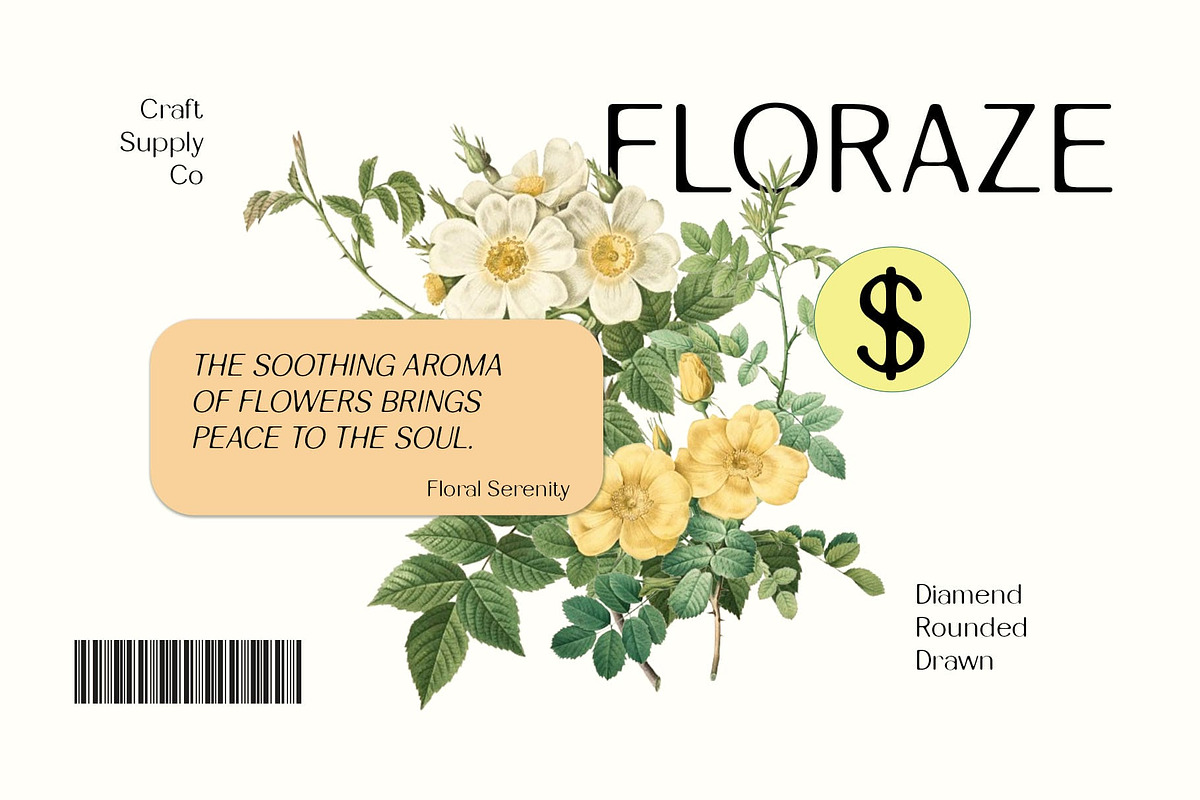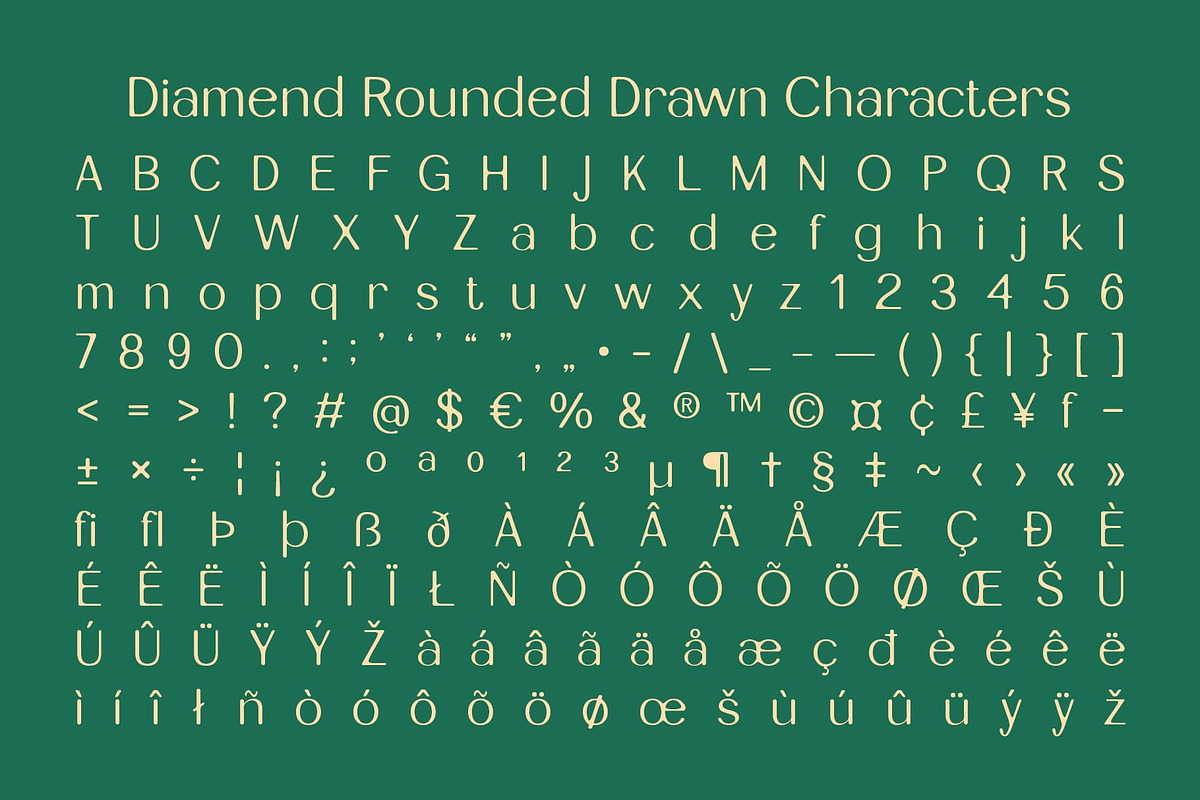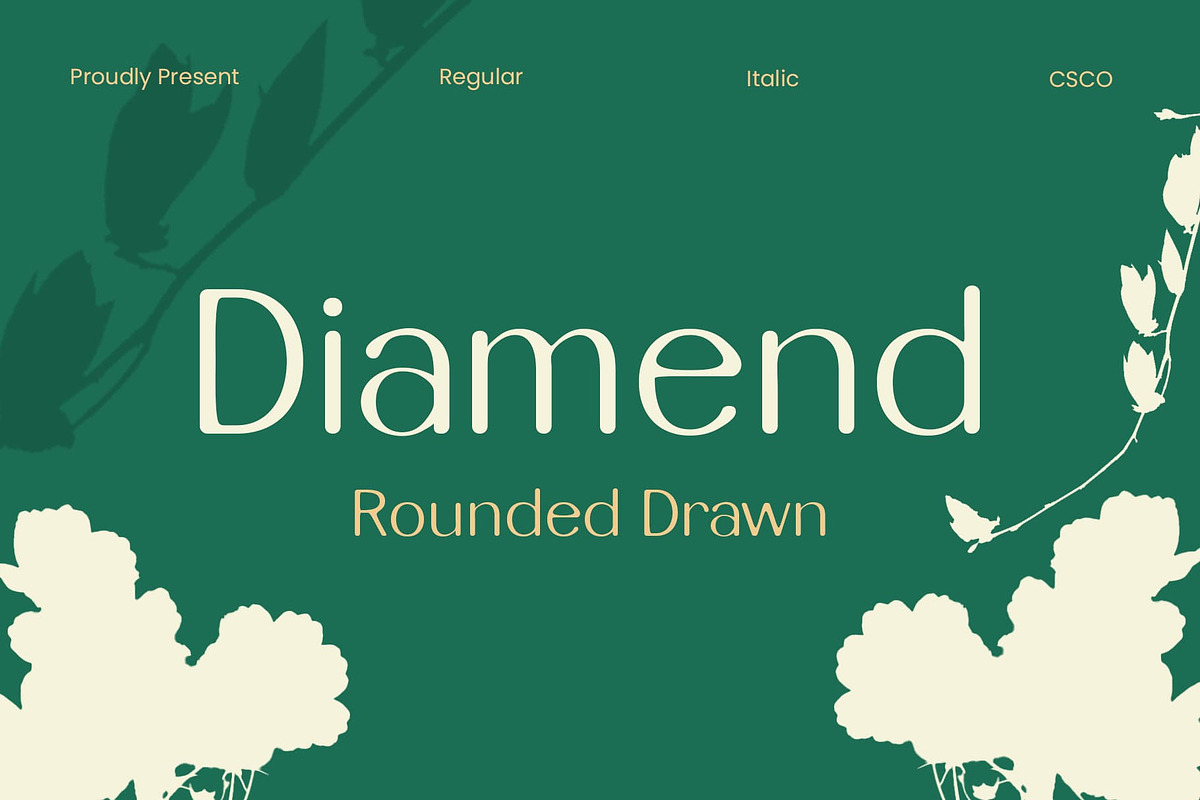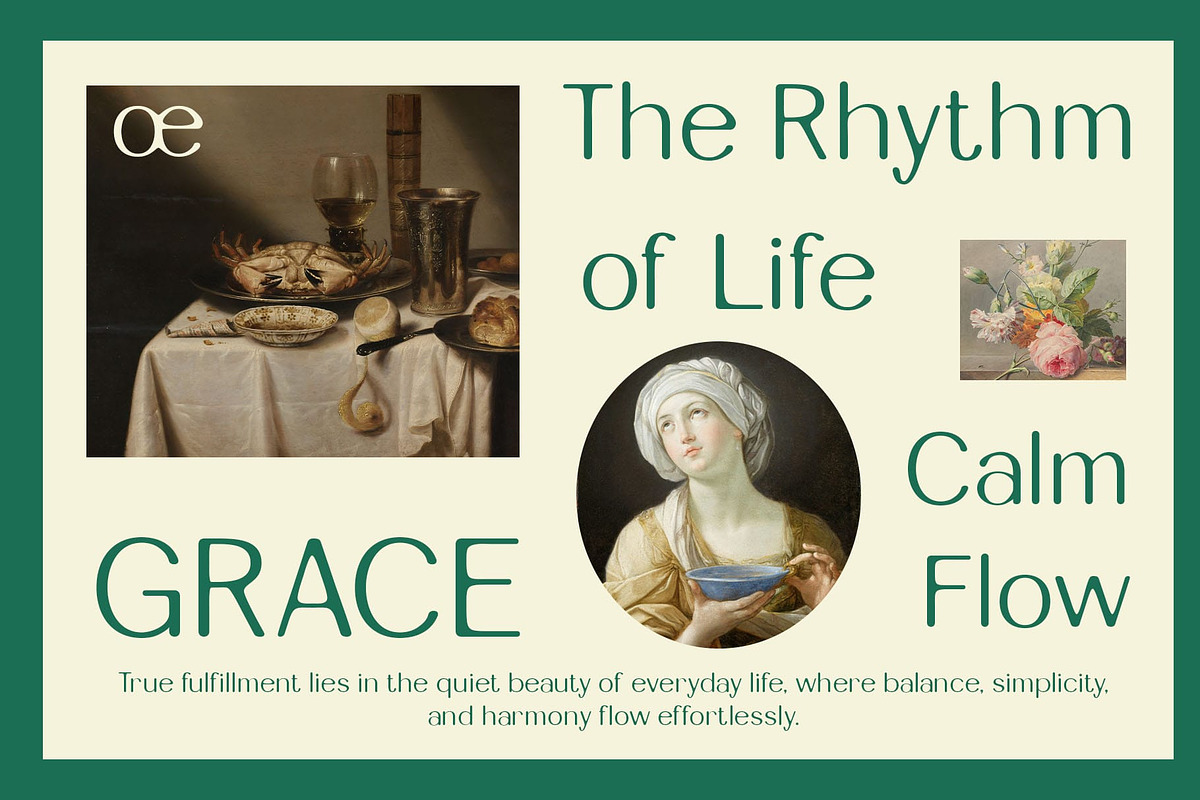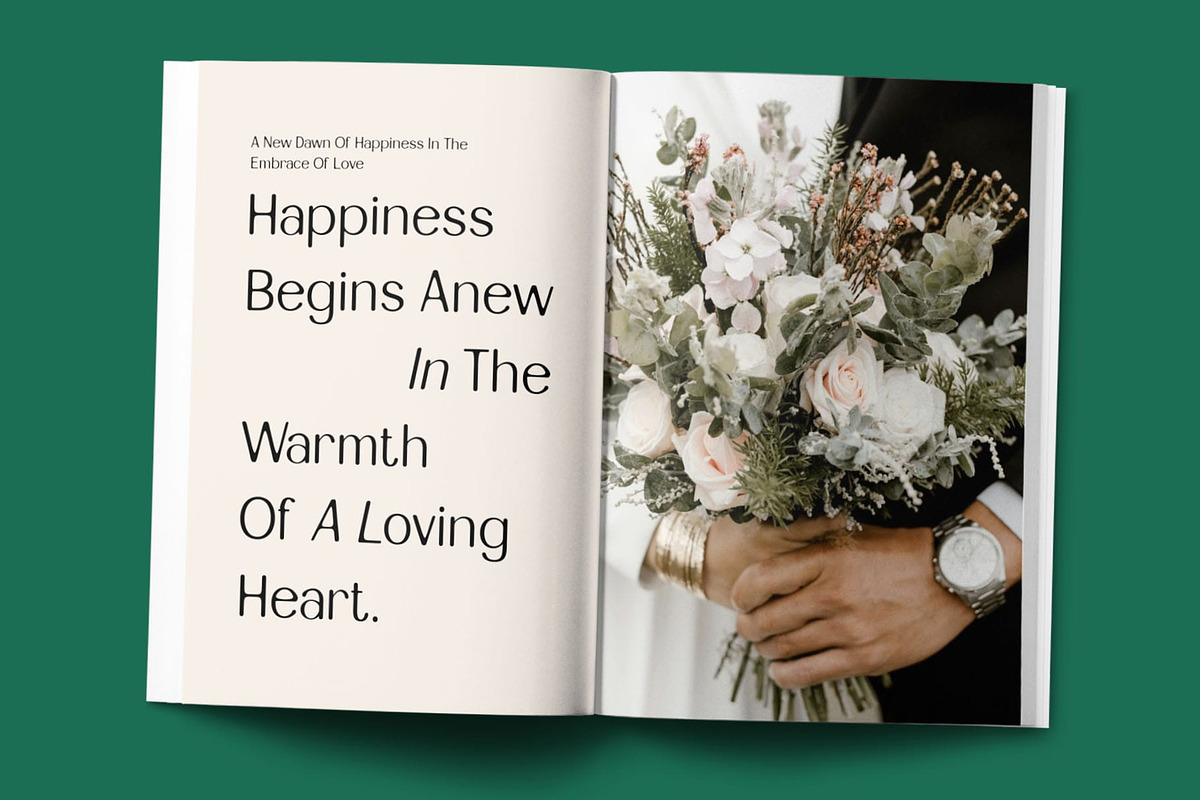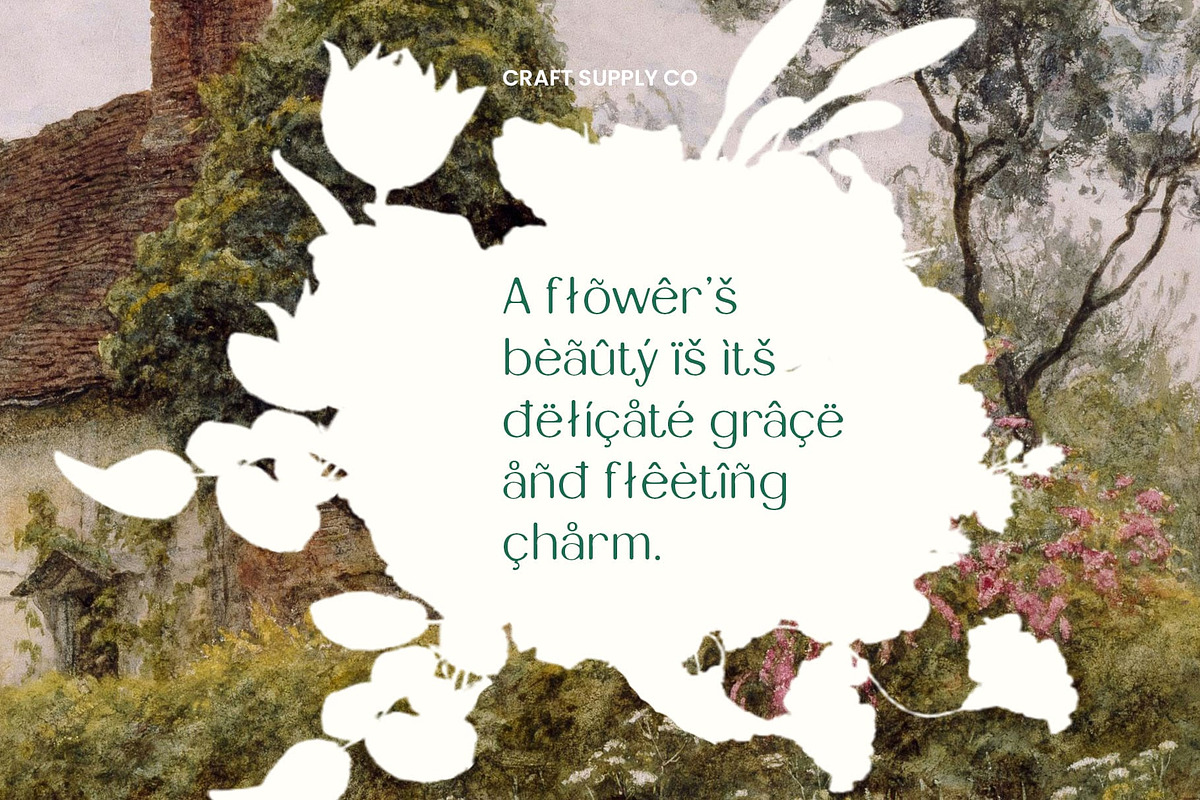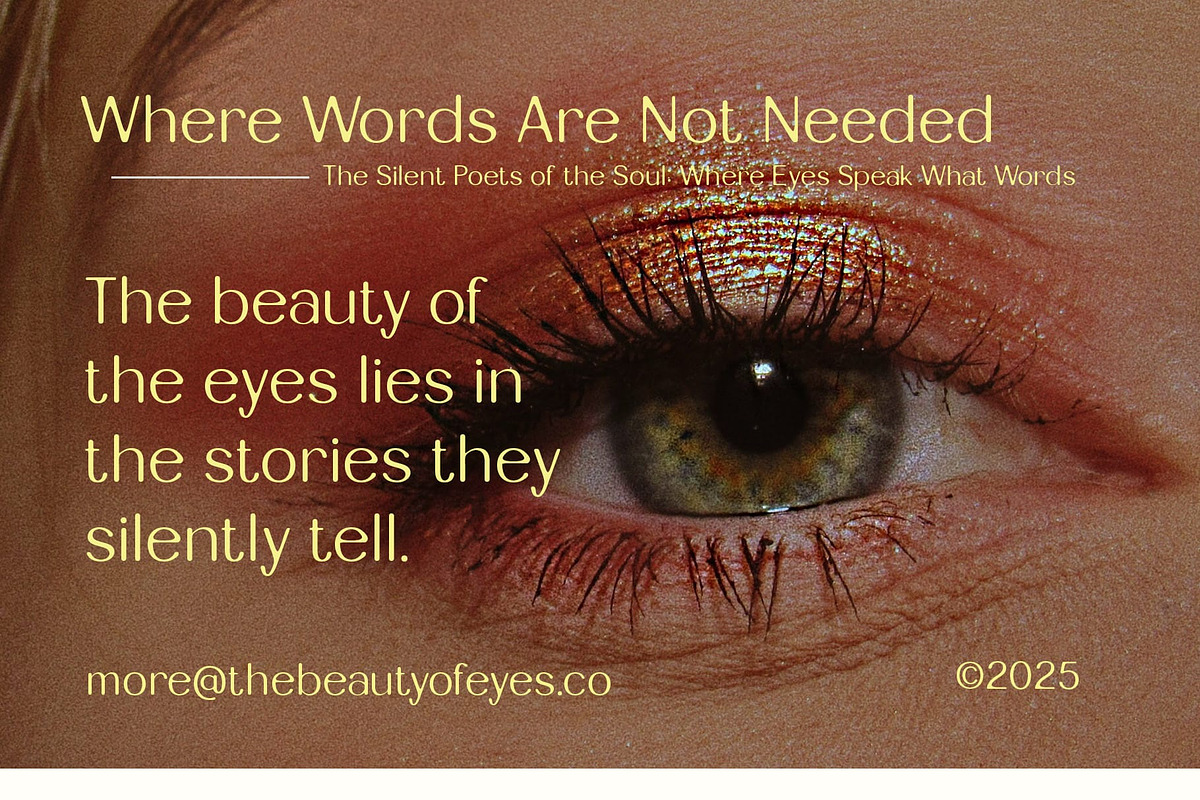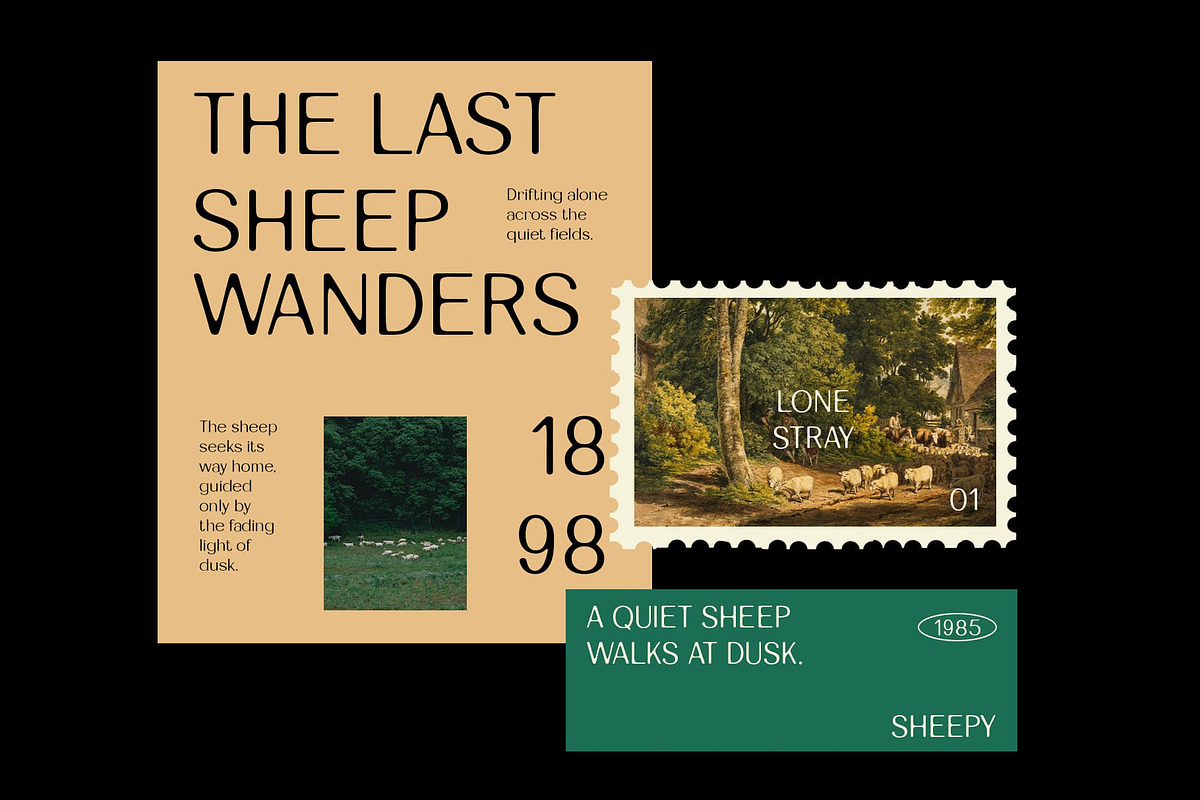
Diamend Rounded Drawn
Diamend Rounded Drawn – Elegance in Every Curve
Modern Sans-Serif with a Minimalist and Rounded Shape This is a modern sans-serif font that exudes elegance and softness through its minimalist, rounded design. Its smooth, flowing curves create a refined and contemporary aesthetic, making it a versatile choice for high-end branding, editorial layouts, and digital designs. With its clean yet inviting form, it enhances visual appeal without overwhelming the composition.
Hand-Drawn Effect for Artistic Uniqueness Adding a subtle artistic touch, this font features a hand-drawn effect that gives it a distinct personality. This organic detail sets it apart from traditional sans-serif fonts, making it an excellent choice for designs that seek to blend precision with a human touch.
Balanced Sophistication and Warmth With its smooth, rounded characters and delicate strokes, this rounded drawn font achieves a harmonious balance between sophistication and warmth. The gentle curves soften its overall appearance, making it feel both modern and inviting.
Versatile for Branding and Creative Projects Diamend Rounded Drawn’s combination of elegance and uniqueness makes it a versatile choice for various design applications. From premium logos and stylish typography to contemporary web design and high-end print materials, it adapts effortlessly to different creative needs.